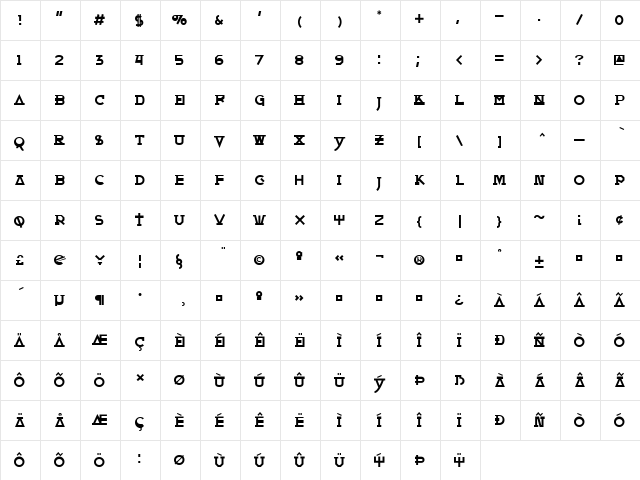
OUtil Regular
Design Context for OUtil Typeface
OUtil is a composed and adaptable typeface that performs quietly and consistently across a wide range of design contexts.
Pro Tip: Pair OUtil with a font of contrasting weight or personality to build a more expressive typographic hierarchy.